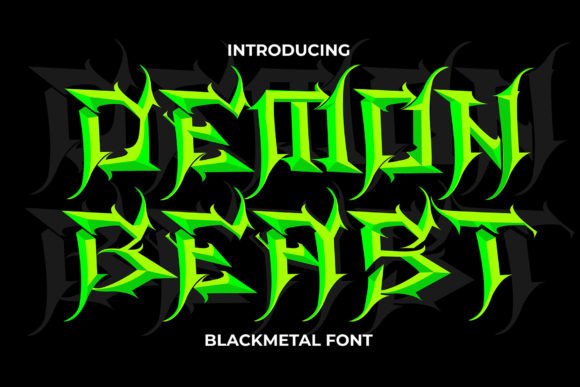
Unleash the Dark Power of Demon Beast: A Font That Embraces the Mysterious and Mystical
Immerse yourself in the realm of eerie aesthetics with Demon Beast, a font shrouded in darkness and intrigue. Inspired by mythical creatures and symbols of the night, this font family captivates with its fierce and commanding presence, evoking an intense Black Metal atmosphere that resonates with the spirit of Halloween.
Each character in Demon Beast exudes power and fear, commanding attention with its sharp lines and angular shapes. The intricate artistic touches and sharp details lend a gothic charm, reminiscent of ancient grimoires and haunted castles. With Demon Beast, you can conjure captivating text that enchants and captivates, adding a mystical and spine-chilling touch to your designs.
Demon Beast's versatility knows no bounds. Adorn your Halloween posters with haunting text, create spellbinding stickers that capture the essence of the supernatural, and design greeting cards that send shivers down the spine. Unleash your creativity and craft captivating invites for Halloween parties, conjuring an eerie atmosphere that sets the stage for a night of frightful fun.
Let Demon Beast ignite your imagination and transport your designs into a realm of darkness and enchantment. Harness the power of this font family and watch as your projects take on a life of their own, commanding attention and captivating hearts. Embrace the mysterious and mystical with Demon Beast, and let your designs speak volumes in the language of the night.